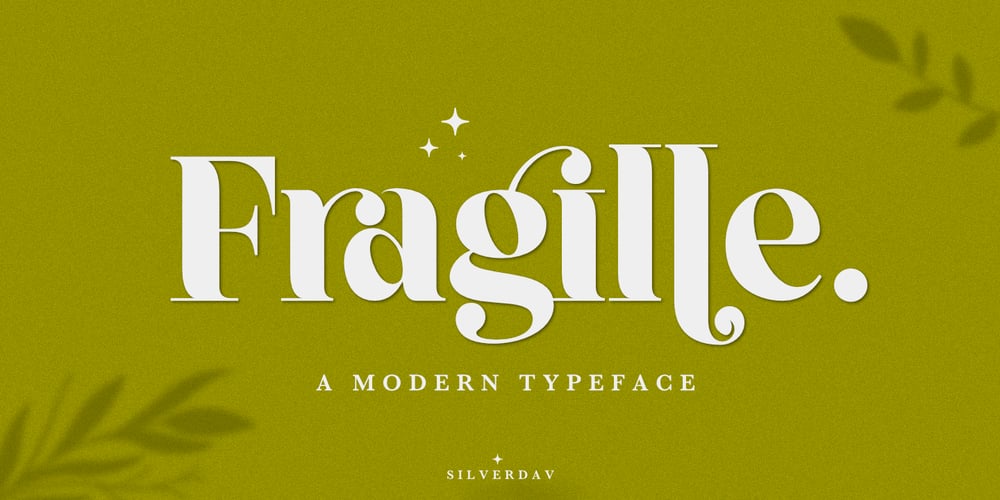
Fragille Font Family was designed by David Kasidi and published by Silverdav. Fragille contains 1 styles and family package options. Fragille – Modern serif typefaceThis font is great for designing elegant logos, quotes, magazine covers, wedding cards, invitations, and brands. Its highly contrasting lines are best used in headlines and projects of a large type. Fragille adds timeless beauty, heavenly curves, and a classic look to any project.It is recommended to use Adobe Illustrator or Adobe Photoshop. Hope you enjoy our fonts and if you have any questions feel free to send a message & I’m happy to help